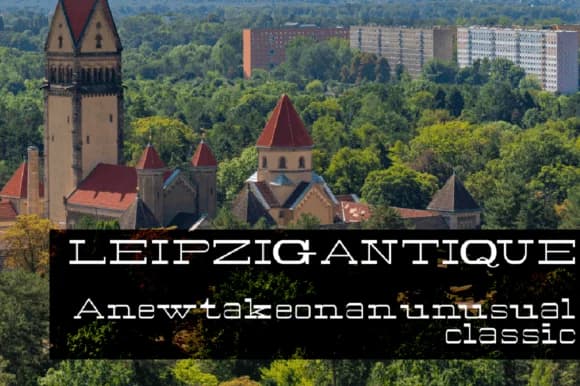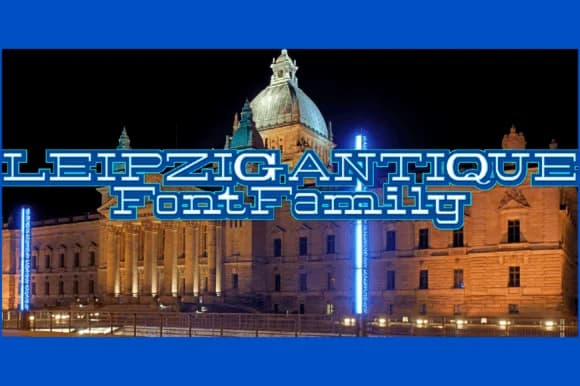
1 / 8About Leipzig Antique Family Font
This slab serif commands attention with a solid, grounded presence that feels both heritage and fresh at once, with personality to spare. Leipzig Antique Family, designed by Megami Studios, marries the sturdy presence of Breite Italienne with contemporary refinements that expand what you can accomplish with it.
The typeface shines in projects that demand visual weight and real personality. Wine label suites gain immediate shelf presence and retail credibility from its strong, confident letterforms, while coffee shop menus read with authority and welcoming character throughout. Editorial covers look timeless without ever feeling dated, and boutique product packaging photographs beautifully when this typeface carries the brand name or tagline. Its alternate letters, extended punctuation, and modern currency symbols give you real flexibility to customize layouts with confidence. Extended Latin support means you're working across languages without sourcing another typeface entirely.
Pair Leipzig Antique with a clean, minimal sans-serif for body copy or secondary text when you need visual breathing room and contrast. That balance between display presence and readability keeps designs from reading too heavy or unrefined. Get it on Creative Fabrica and start building the vintage-modern aesthetic your clients keep asking for.
- Sturdy, Confident, Breite Italienne
Leipzig Antique Family Font is a slab serif font that shines as a display or heading face. Pair it with a clean sans-serif or serif font for body text β the contrast creates a clear hierarchy while the two styles stay balanced and easy to read.